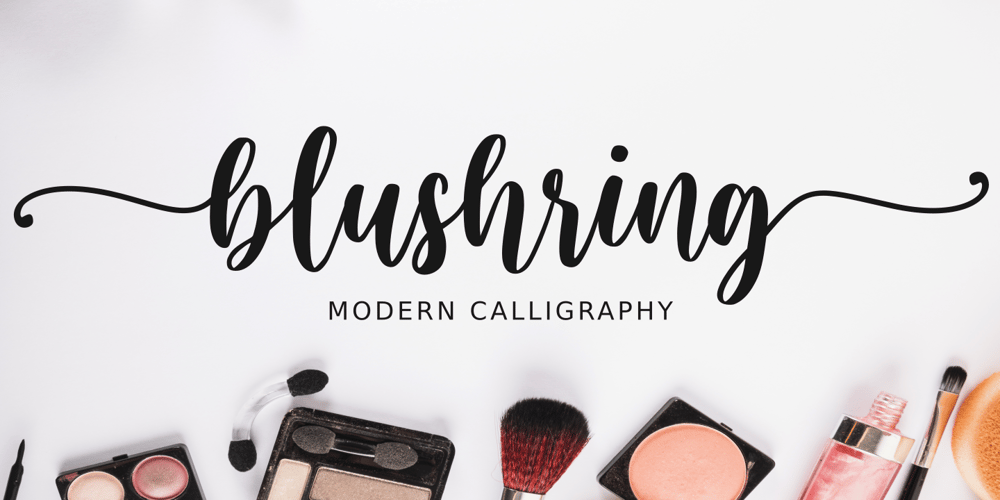
Blushring Font Family was designed by Faja Abdul Fatah and published by Sibelumpagi. Blushring contains 1 styles and family package options. Blushring is a beautiful modern calligraphy font. It comes with some alternates that make the font look beautiful and elegant.It’s perfect for logos, product packaging, wedding invitations, branding, headlines, signage, labels, signature, book covers, posters, quotes and more. And this Font has given PUA Unicode (specially coded fonts). so that all the alternate characters can easily be accessed.